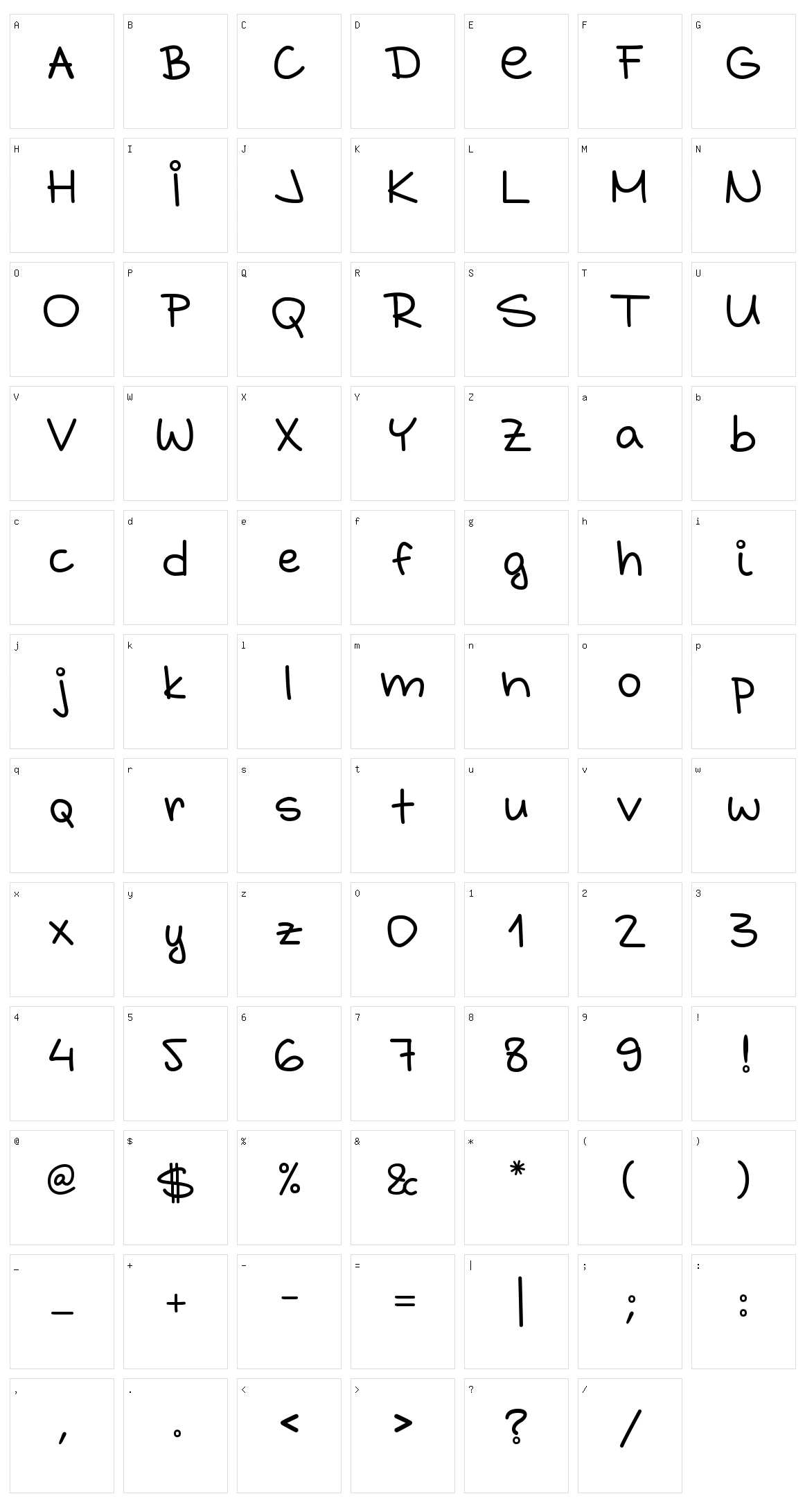
The free font Grabstein HandSchrift is carefully designed by Grabstein, showcasing a thoughtful balance of creativity and usability and falls under the Script font style. When you download the ZIP file, it contains only 45.51 KB of font files, making it lightweight and quick to download. Please review the license details below to understand permitted usage and distribution rights. If license information is not available, we recommend using this font for personal projects only or contacting the author directly for commercial usage permissions.